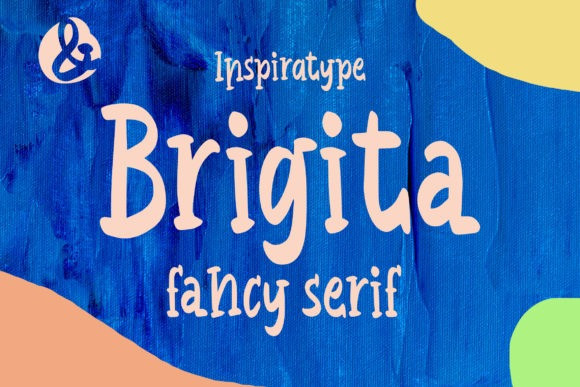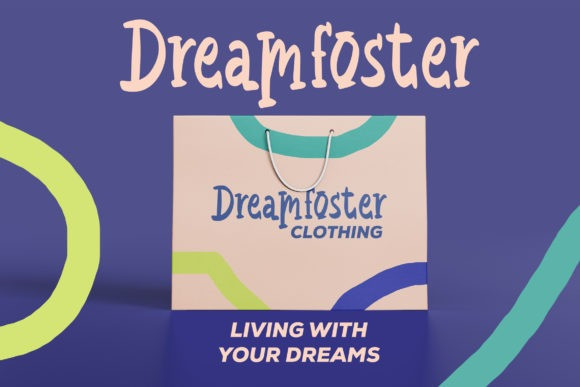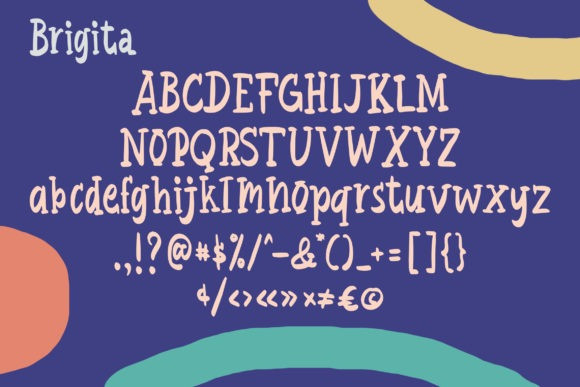
Brigita Display Font
Brigita is a friendly and casual serif font. It can easily be matched to an incredibly large set of projects, so add it to your creative ideas and notice how it makes them stand out!